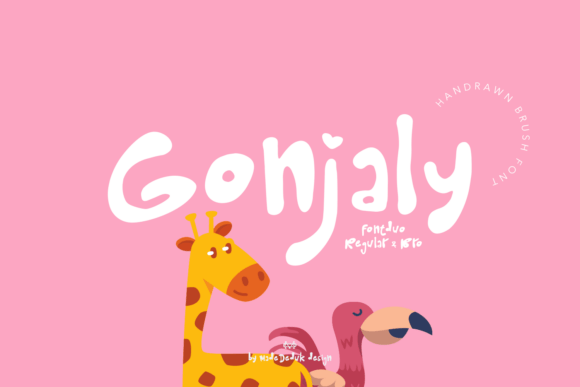
Introduction to Gonjaly Font
Gonjaly is a fun and quirky hand-drawn brush font with a playful personality.
Its rounded, friendly letters make it perfect for children’s books, cute branding, greeting cards, and whimsical design projects The heart-shaped details add extra charm, making it an ideal choice for joyful and creative works.
Key Features of Gonjaly Font
Why Choose Gonjaly Font?
Gonjaly Font offers exceptional quality and versatility, making it a valuable addition to your design toolkit. Whether you’re creating for personal projects or commercial use, Gonjaly Font delivers professional results.